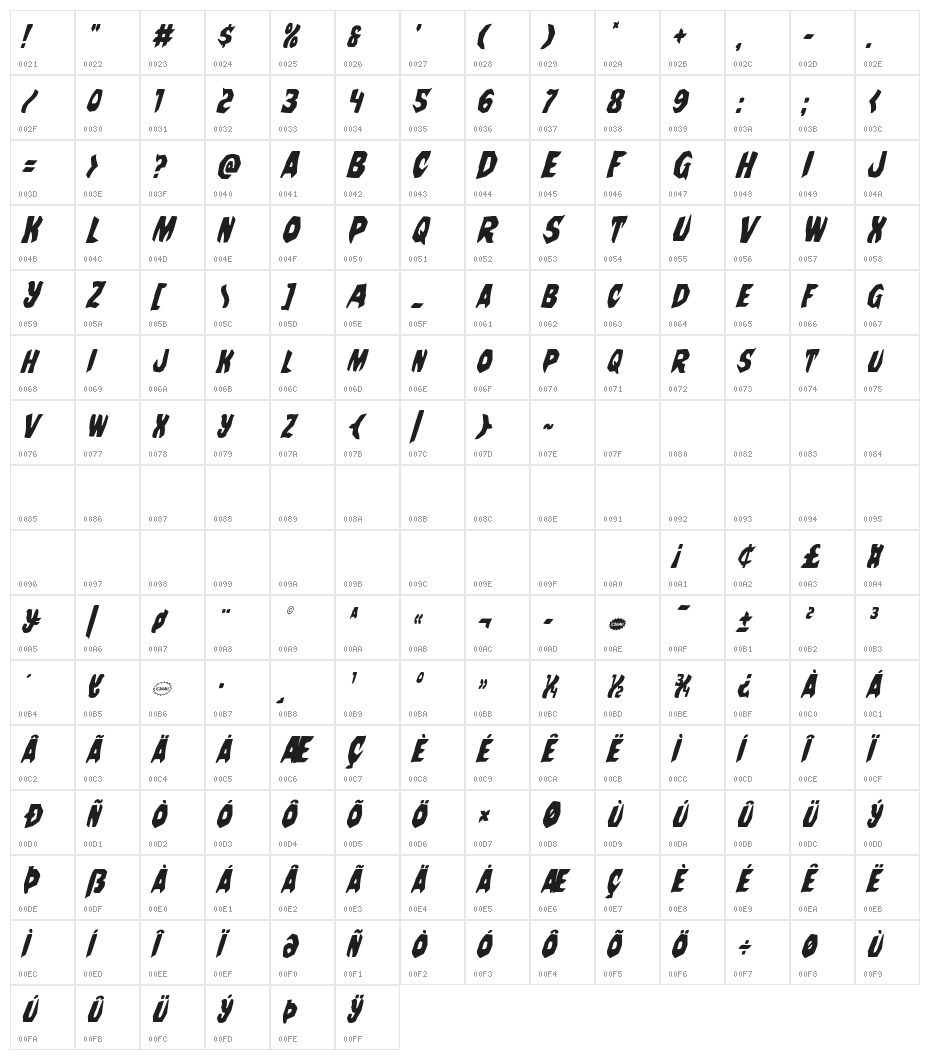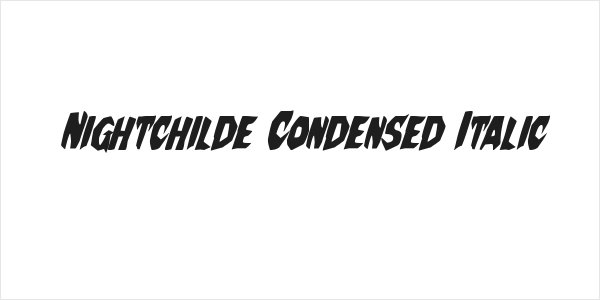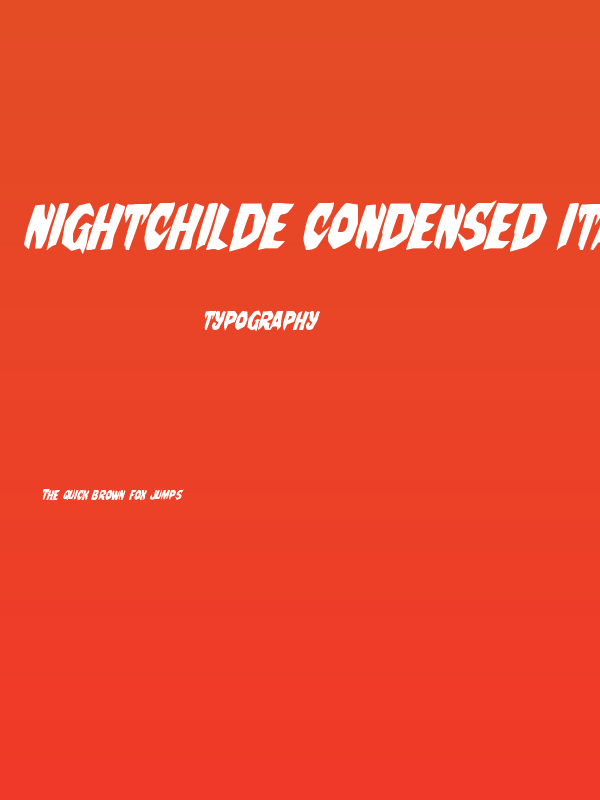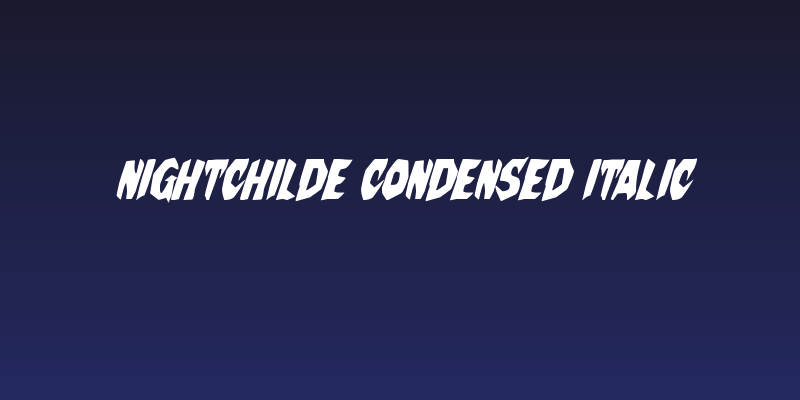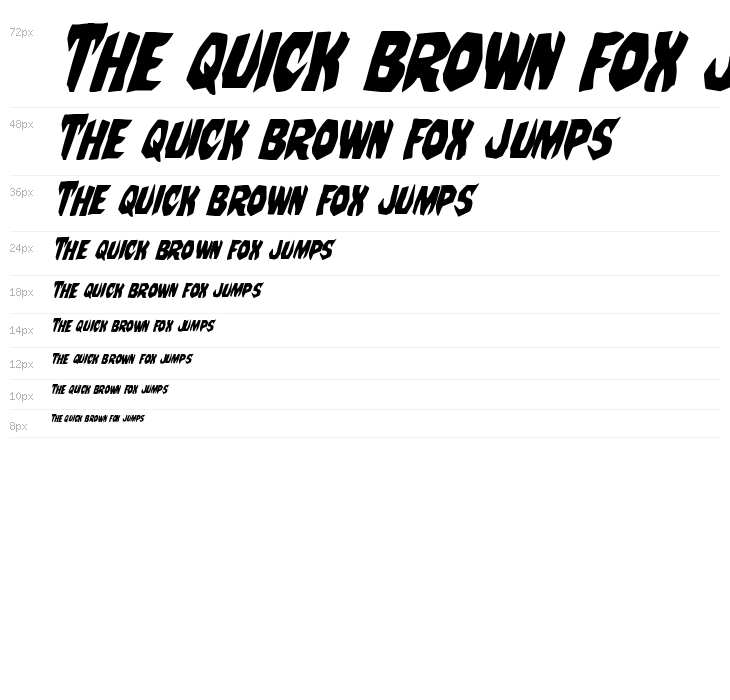
Nightchilde Condensed Italic Font
Nightchilde Condensed Italic Description
This font features a bold and dynamic style with a condensed and italicized form. The characters have a sharp, angular design, giving them a sense of movement and energy. The uppercase and lowercase letters maintain a consistent slant, enhancing the italic effect. The numbers and special characters follow the same stylistic approach, ensuring uniformity across all glyphs. The font's boldness and condensed width make it suitable for impactful headlines and attention-grabbing designs. Its unique style is ideal for projects that require a strong visual presence.
| Proposed Projects | Ideal for posters, logos, branding, and any design requiring a bold statement. |